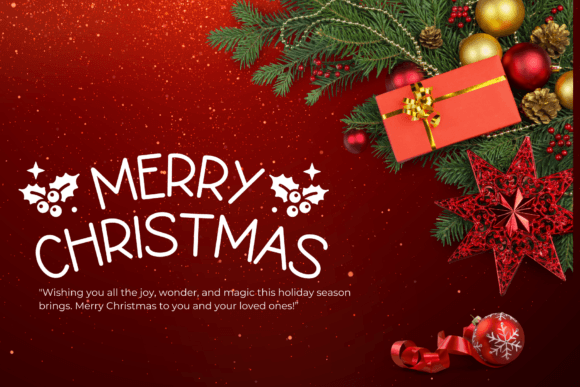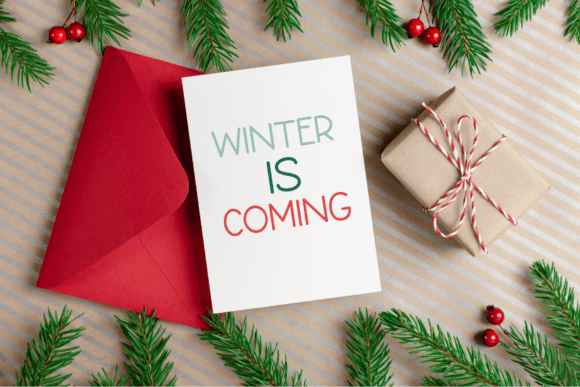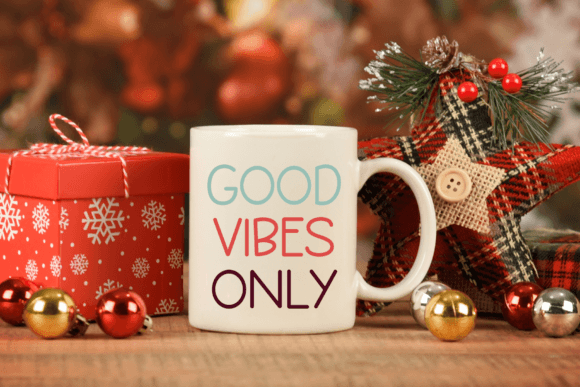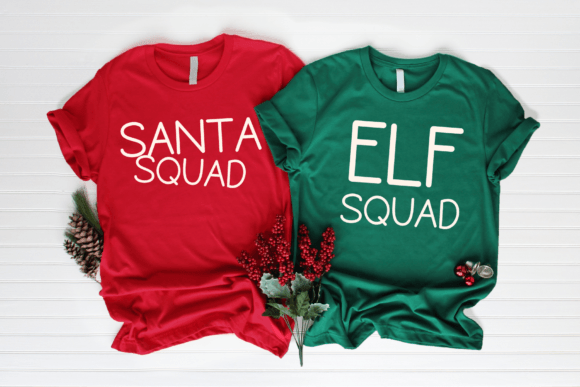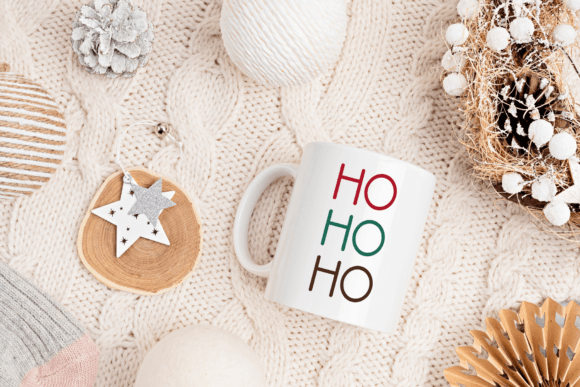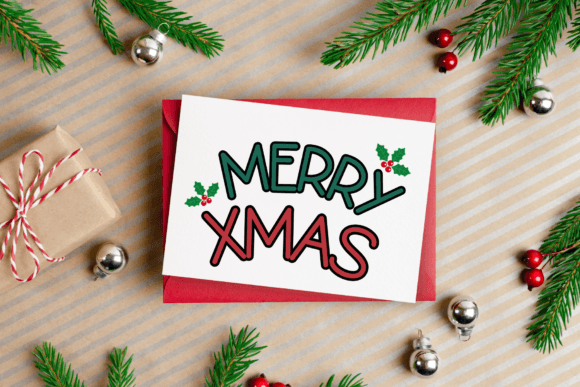
Introducing Faith Font: The Ultimate Choice for Creative Projects
Are you a designer, crafter, or DIY enthusiast looking for a font that embodies playfulness and authenticity? Look no further than Faith Font! This fun handwritten font is perfect for adding a personal touch to your favorite projects, blog posts, logos, branding, ads, invitations, greeting cards, planners, photo albums, decorations, and much more.
The Characteristics of Faith Font
Faith Font is a unique and charming handwritten font that exudes a sense of playfulness and friendliness. Its authentic and approachable feel makes it perfect for a wide range of creative projects. The font’s characteristics include:
• Handwritten style with a personal touch
• Playful and fun feel
• Authentic and genuine look
• Perfect for creative projects, blog posts, and social media
Uses of Faith Font
Faith Font is an incredibly versatile font that can be used in a variety of creative projects. Here are some ideas to get you started:
• Blog Posts: Add a personal touch to your blog posts with Faith Font. Use it for headings, subheadings, or even the entire content.
• Logos and Branding: Create a unique and memorable logo for your brand using Faith Font. It’s perfect for businesses that want to convey a friendly and approachable image.
• Ads and Marketing Materials: Use Faith Font to create eye-catching ads, flyers, and brochures that grab attention.
• Invitations and Greeting Cards: Add a personal touch to your invitations and greeting cards with Faith Font. It’s perfect for birthdays, weddings, and other special occasions.
• Planners and Photo Albums: Use Faith Font to create beautiful and functional planners and photo albums.
• Decorations: Add a touch of personality to your decorations with Faith Font. Use it for signs, banners, and other decorative items.
Why Choose Faith Font?
So why choose Faith Font over other fonts? Here are some reasons why Faith Font stands out:
• Unique and Playful: Faith Font has a unique and playful feel that sets it apart from other fonts.
• Authentic and Genuine: Faith Font has an authentic and genuine look that makes it perfect for creative projects.
• Versatile: Faith Font can be used in a wide range of creative projects, from blog posts to logos and branding.
• Easy to Read: Faith Font is easy to read, making it perfect for body text and other written content.
In conclusion, Faith Font is a fun and playful handwritten font that embodies authenticity and playfulness. Its versatility and ease of use make it perfect for a wide range of creative projects. Whether you’re a designer, crafter, or DIY enthusiast, Faith Font is the perfect choice for adding a personal touch to your favorite projects. So why wait? Download Faith Font today and start creating!